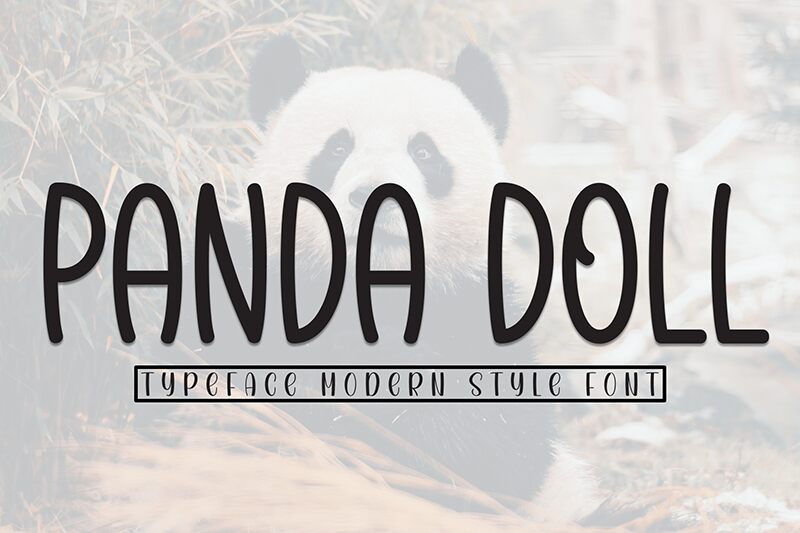
Panda Doll
Panda Doll font is a casual free handwritten font by Andi Moz. Its rounded and condensed characters give it a modern and approachable feel that makes it special in its own right. The contemporary informal aesthetic of this typeface allows it to match perfectly with illustrations and other decorative elements.
Use Panda Doll for product branding, logos, children’s storybooks, typography quotes, comics lettering, greeting cards design, magazines titles and descriptions, posters design, packaging labels for food or healthcare products.